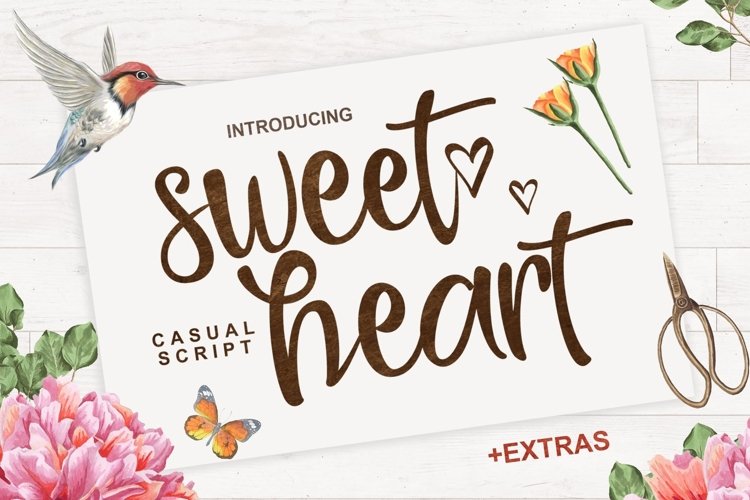
Sweet Heart is casual script that is very suitable for logo, branding, website, invitation, business card, and for any merchandise.
This also comes with 26 extras to make designing easy and fun
Opentype features : stylistic alternates, ligature, titling, stylistic set